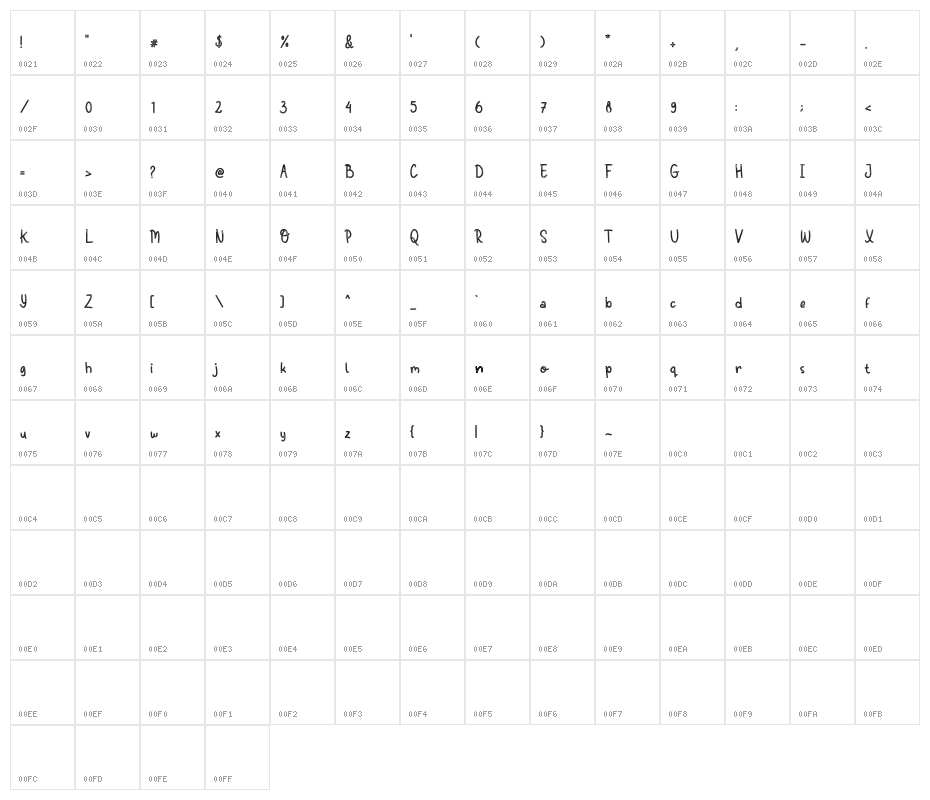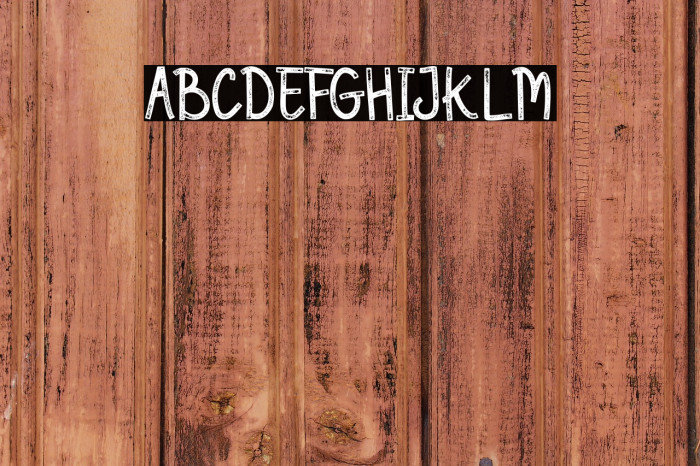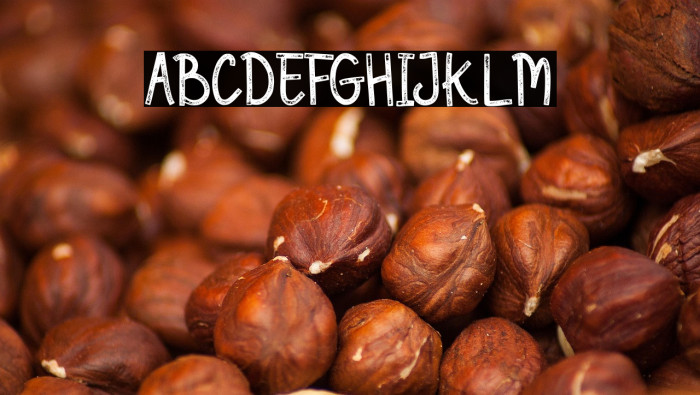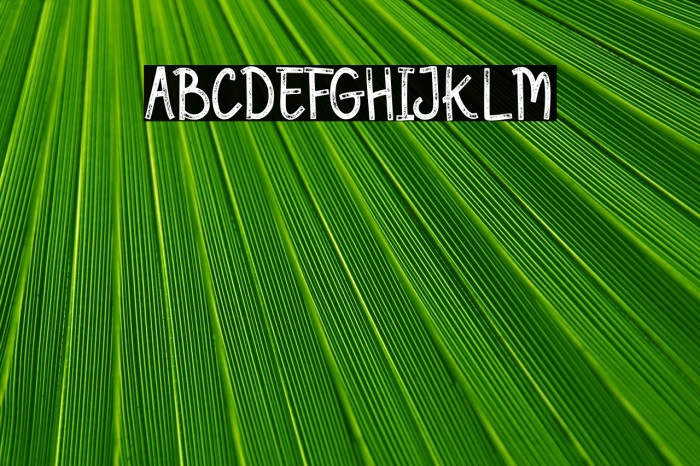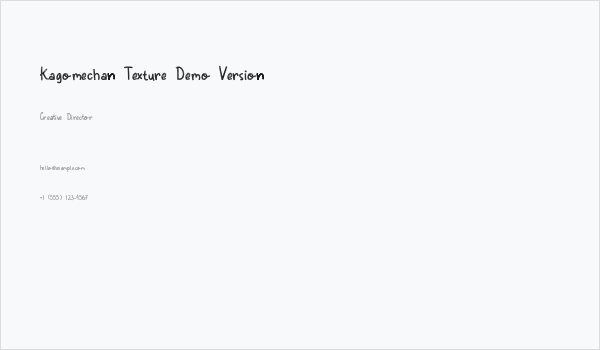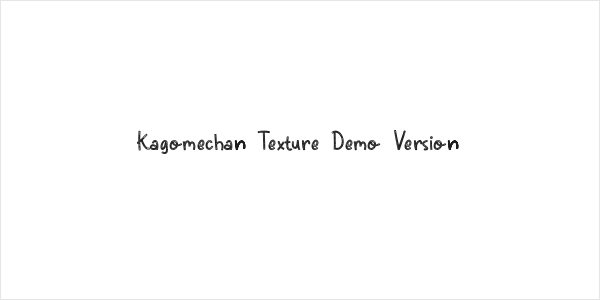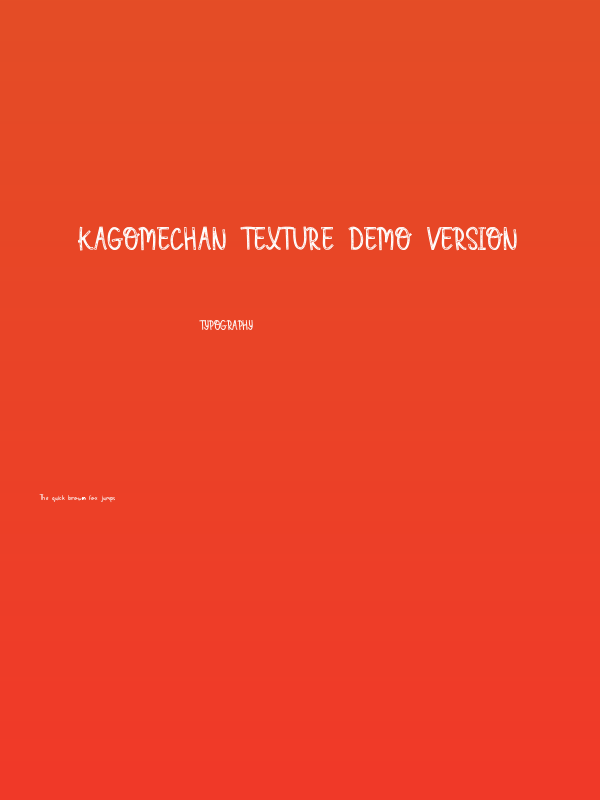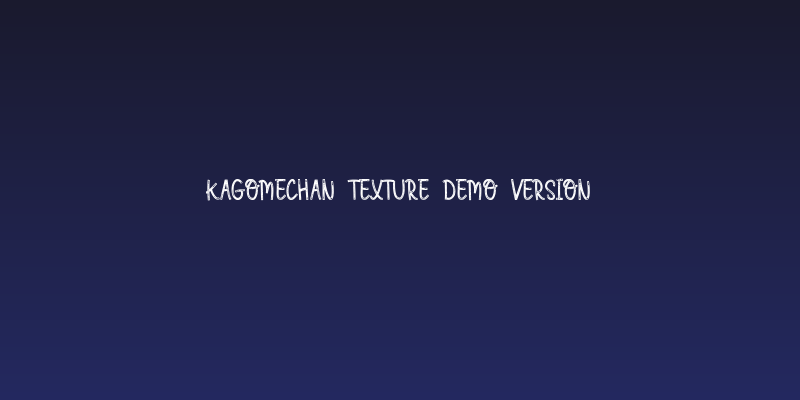
Kagomechan Texture Demo Version Font
Kagomechan Texture Demo Version Description
This font features a playful and textured design, with each character exhibiting a unique, hand-drawn appearance. The letters have a slightly irregular shape, giving them a whimsical and artistic feel. The texture within each character adds depth and interest, making it stand out in creative projects. The uppercase and lowercase letters maintain a consistent style, while the numerals and special characters complement the overall aesthetic. This font is ideal for projects that require a fun and engaging visual element.
| Proposed Projects | Ideal for children's books, playful branding, creative posters, and artistic invitations. |